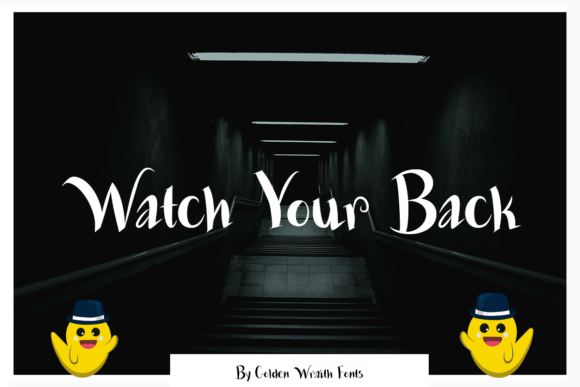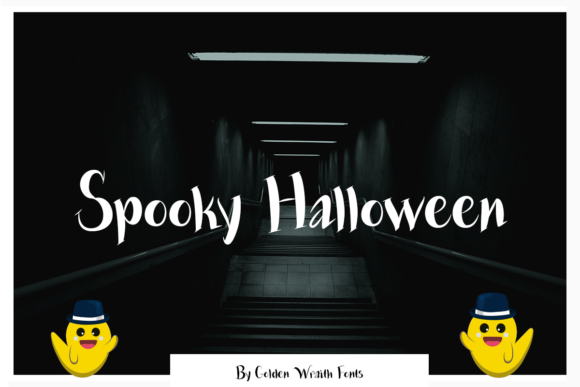
Introduction to Golden Ghost Legend Font
Have you ever found yourself staring at a blank page, desperately seeking the perfect font to bring your creative project to life? The cursor blinks away, taunting you with its silence, until suddenly, the right font appears like a ray of sunshine. For designers, that moment of epiphany is priceless.
One such font that can make that moment a reality is the Golden Ghost Legend Font. This bold and fun serif font is a game-changer for any creative endeavor. With its charming characters that seem to dance along the baseline, it’s sure to add a touch of whimsy to your designs.
Key Features of Golden Ghost Legend Font
- High-quality font designed for creative projects, ideal for designers and artists.
- Unique, transparent background design adds a touch of elegance to any project.
- Perfect for use in graphic design, digital art, and other creative projects where a distinctive font is desired.
- Unique ghostly design element adds a touch of mystery and sophistication to any design.
Honest Review: Golden Ghost Legend Font
I recently had the opportunity to work with the Golden Ghost Legend Font, and I’m excited to share my thoughts with you. As a designer, I’m always on the lookout for high-quality design resources that can elevate my creative projects.
One of the things that stood out to me about this font is its versatility. It’s perfect for adding a touch of elegance to your designs, and the transparent background makes it easy to use on any background image or color.
Here are some things that work well with the Golden Ghost Legend Font:
- ✨ Elegant and sophisticated look
- ✨ Easy to read, even at small font sizes
- ✨ Transparent background makes it easy to use
However, there are a few limitations to be aware of:
- ⚠️ Limited font weights and styles
- ⚠️ May not be suitable for very bold or playful designs
Overall, I was impressed with the Golden Ghost Legend Font, and I think it’s a great addition to any designer’s toolkit. With a little creativity, it’s easy to make this font shine in your next design project.
How to Use Golden Ghost Legend Font
Golden Ghost Legend Font
The Golden Ghost Legend Font is a high-quality design resource perfect for adding a touch of elegance to your creative project. This free download font features a transparent background, making it easy to customize and use in various design applications.
Tips for Getting the Most Out of Golden Ghost Legend Font
For the best results, use the Golden Ghost Legend Font in conjunction with other high-quality design resources, such as images and graphics. Experiment with different font sizes and styles to add visual interest to your design.
Common Use Cases for Golden Ghost Legend Font
This font is perfect for a wide range of applications, including wedding invitations, business cards, and luxury brand designs. Its elegant and sophisticated design makes it ideal for any creative project that requires a touch of luxury and sophistication.